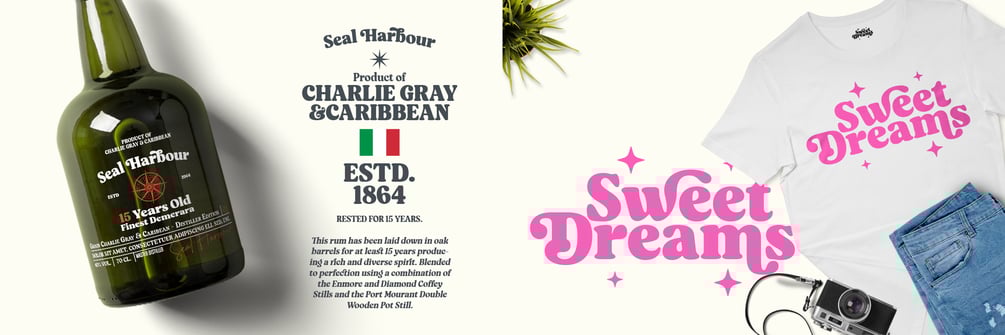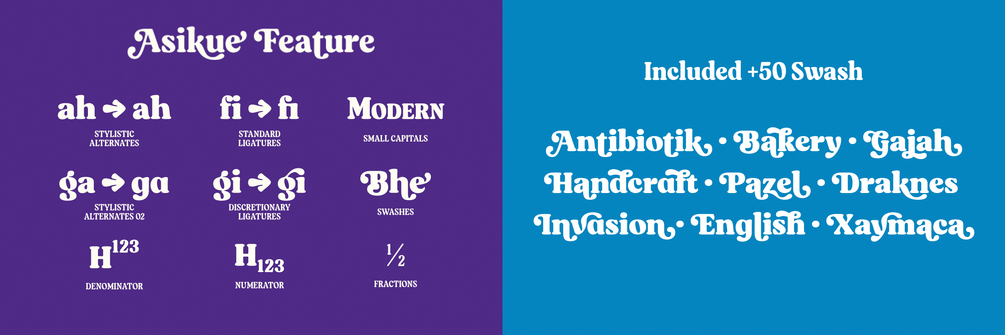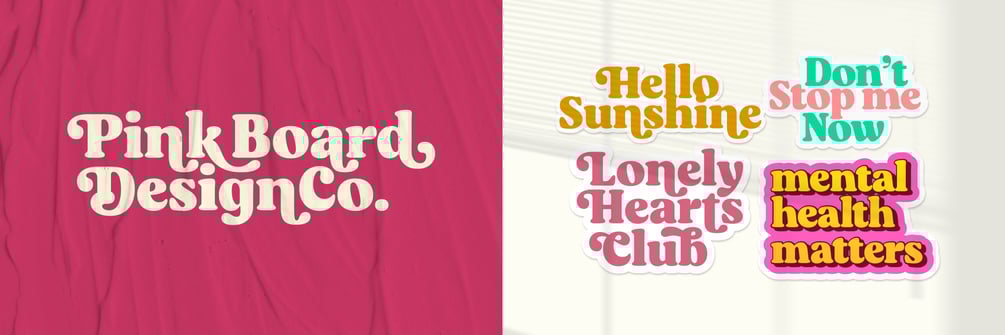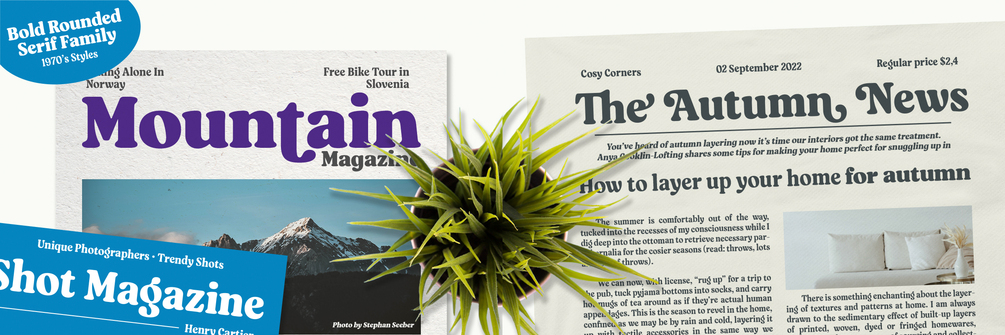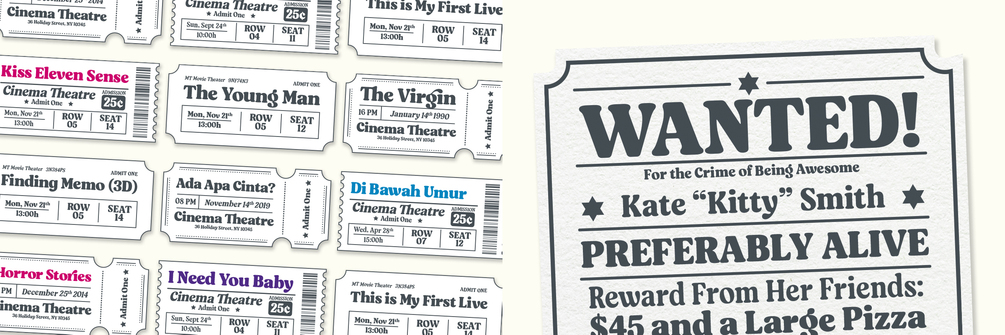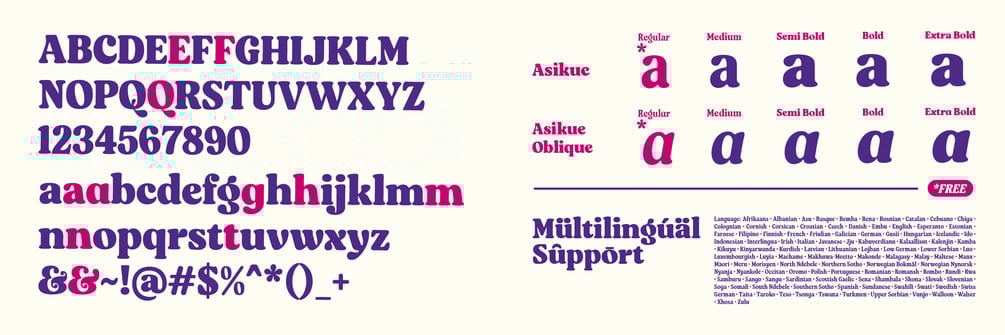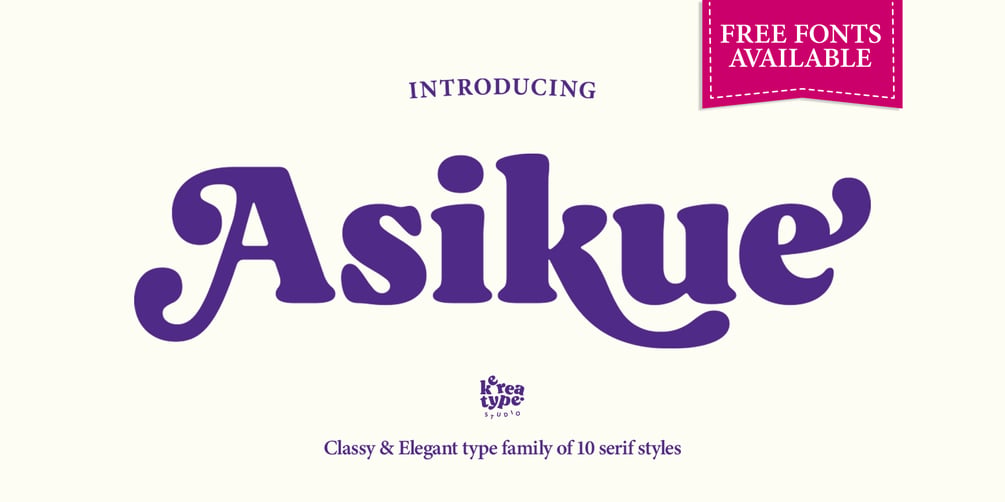
Asikue
Asikue is a soft serif font family inspired by the 70’s retro styles that bring chunky retro typography to the modern era. Asikue consists of 10 styles from regular to extra bold with each matching oblique.
Asikue includes Opentype features: Alternate, Ligature, Swashes, etc providing you with a variety of beautiful custom text arrangements. Whether it's a fancy retro-inspired, logo, or engaging bold header text, Asikue can deliver.
Features:
• Upper Case & Lowercase
• Stylistic Alternates
• Standard & Discretionary Ligatures
• Numerals & Punctuations (OpenType Standard)
• Multilingual characters
• Support more than 100 languages
Regular, Medium, Semi Bold, Bold, Extra Bold (with Oblique styles)